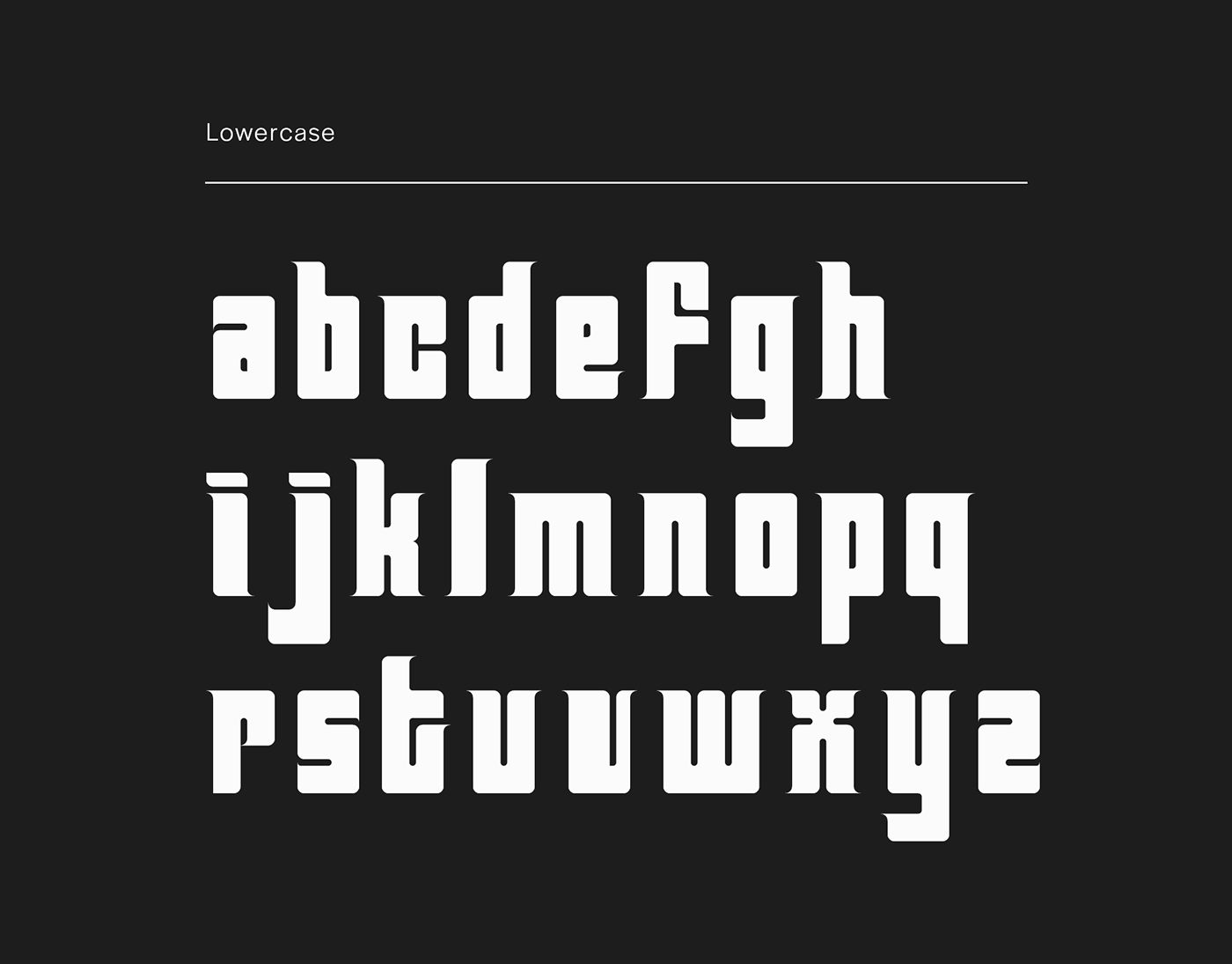
Bold! Bright! Balanced!
Far Out! is a free display font loosely based off the type of the 1960's.
It was originally a project for a typography class. I had a lot of fun making this,
and I hope you will have a lot of fun using it.